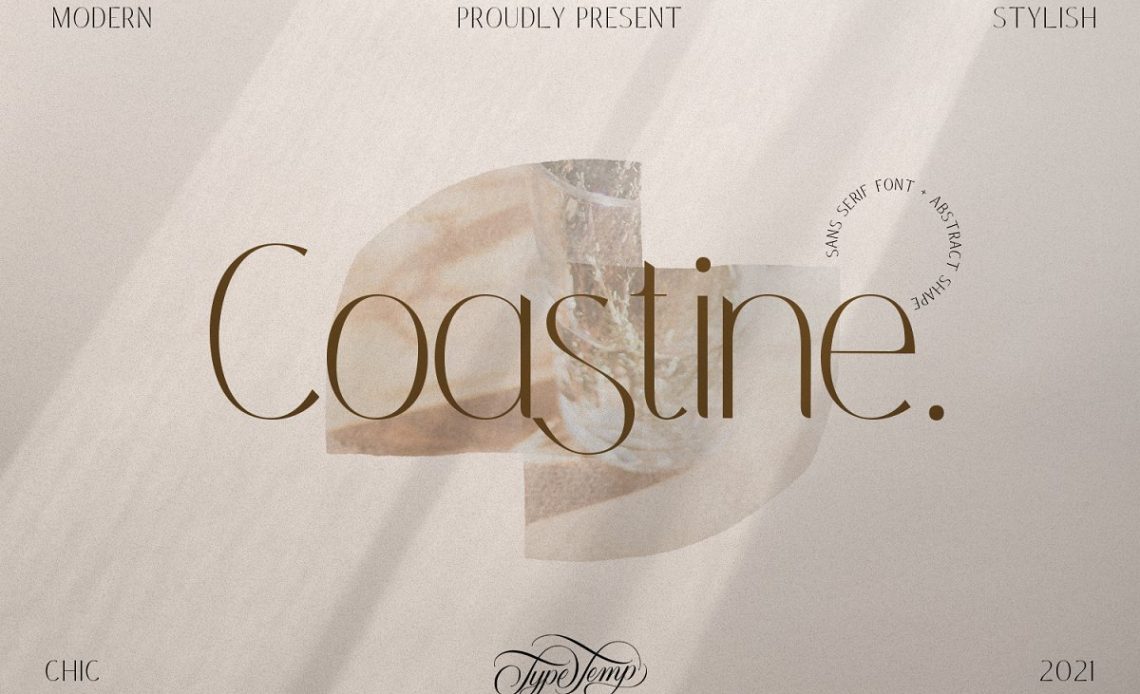
Introducing Coastine - Chic Modern Font, a stunning addition to your font collection! This sans-serif font, created by the talented Egi Ahmad Mufid, is designed to elevate your creative projects and captivate your audience.
Coastine Chic Modern Font offers a perfect blend of elegance and modernity. Its upper and lowercase letters are complemented by a range of alternative characters, all crafted with love. With access to OpenType features, you can explore a vast selection of alternate letters and ligatures, allowing you to create a unique and personalized display font that truly reflects your style.
Whether you're working on editorial projects, designing a logo, branding clothing, or creating eye-catching product packaging, Coastine is the perfect choice. Its versatility makes it suitable for various applications, and its chic aesthetic adds a touch of sophistication to any design.
One of the standout features of Coastine is its ability to effortlessly enhance magazine headers or serve as a stylish text overlay on any background image. The font's clean lines and modern vibe ensure that your text will always make a bold and memorable statement.
Coastine offers a range of essential features to support your creative journey. It includes uppercase and lowercase letters, stylistic alternates, ligatures, numerals, punctuation, and multilanguage support. Additionally, the font is PUA encoded, ensuring seamless compatibility across different platforms.